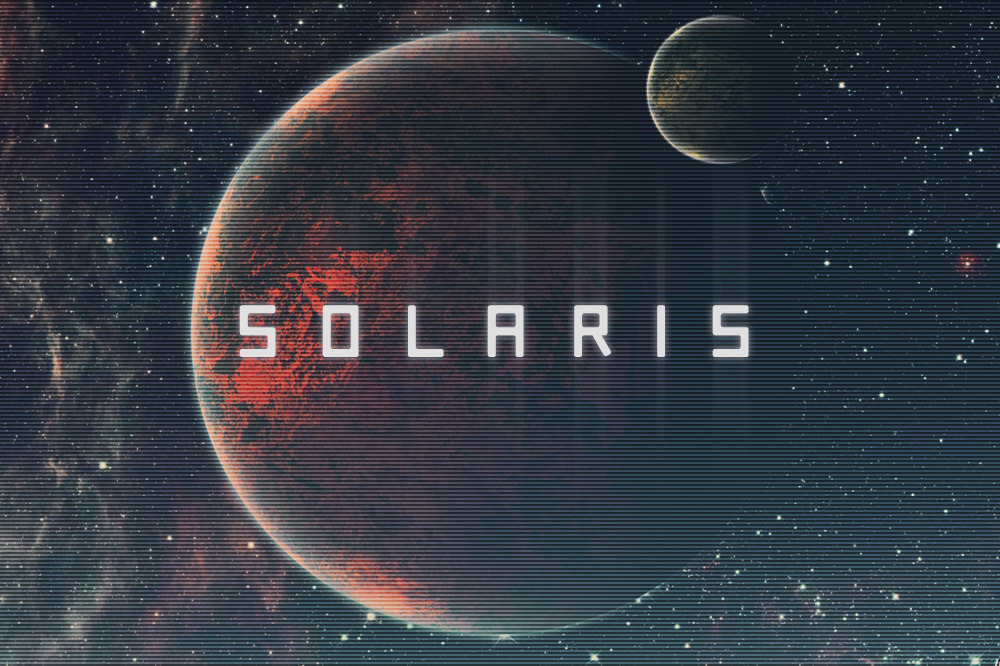
Solaris - Futuristic Font
Toggle Caps Lock for alternate characters!
Solaris is a futuristic font with alternate letters, numericals and punctuation. It's tall, bold and I hope to see it on the side of a spaceship one day.